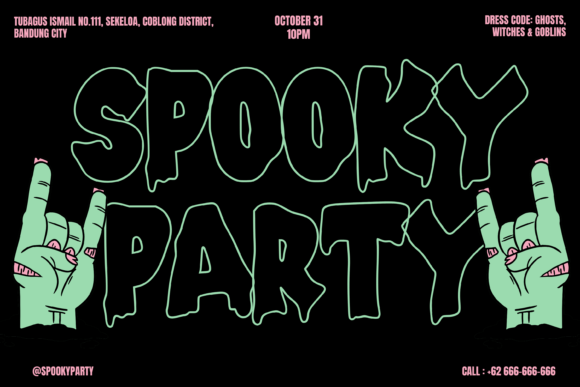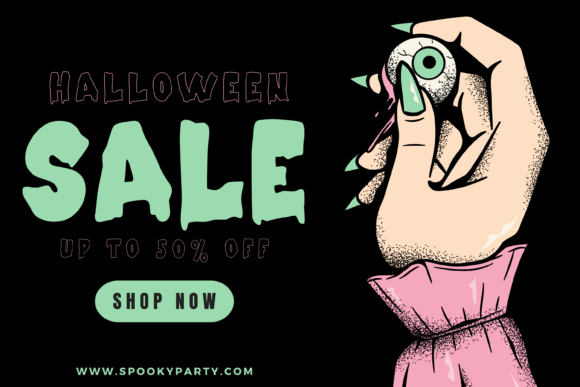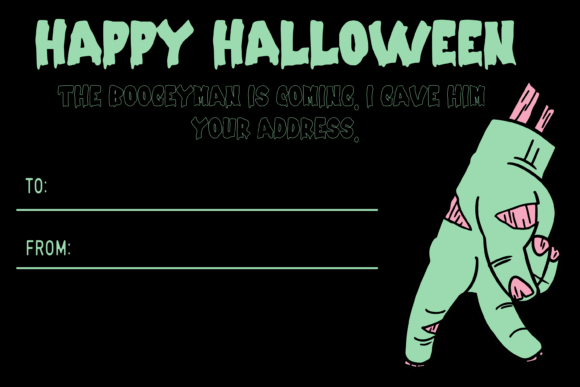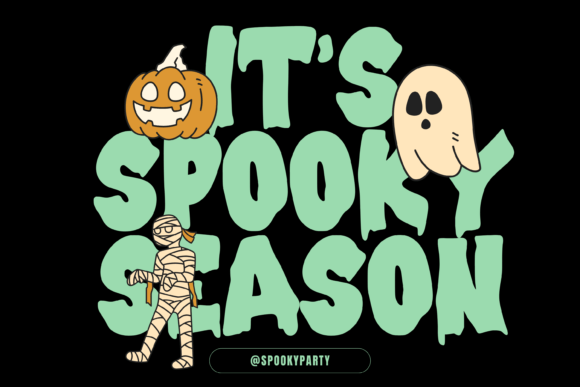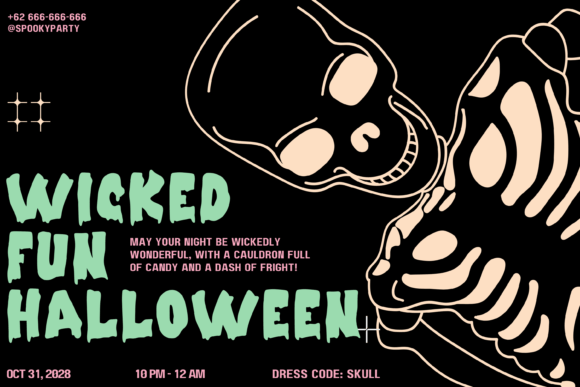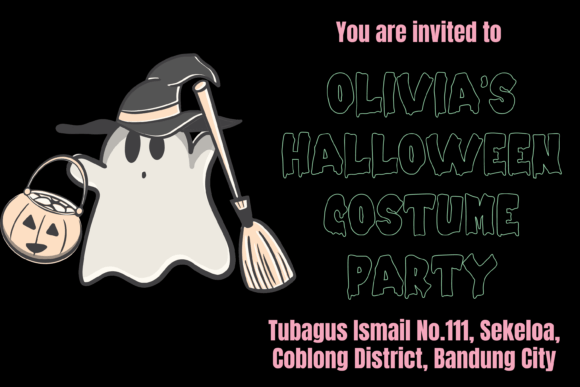
Introduction to Creepy Spooky Font
As you dive into your latest creative project, a spark of inspiration hits you – you want to create something that screams Halloween. The jack-o-lanterns are lit, the cobwebs are hanging, and the spooky atmosphere is in the air. But, what’s missing is that perfect font to elevate your design to the next level. That’s where the Creepy Spooky Font comes in – a free download that’s sure to add an instant air of horror to your text.
Designers know that the right font can make all the difference in a project. With its unique dripping effect and jagged edges, the Creepy Spooky Font is a high-quality design resource that’s perfect for adding a touch of eeriness to your creative project. Whether you’re working on a Halloween-themed design, a spooky movie poster, or a creepy social media graphic, this font is sure to deliver. And, with its transparent background, you can easily place it over any image or background, making it a valuable addition to your design arsenal.
Key Features of Creepy Spooky Font
- Unique, spooky design elements that can add a creepy atmosphere to any creative project
- Transparent background, allowing for easy customization and integration with other design resources
- Includes a range of font styles and sizes, from bold and eerie to subtle and mysterious
- Designed with a high resolution of 300 DPI, ensuring crisp and clear text in any size or format
- Perfect design resource for Halloween-themed projects, horror movies, or any other creative project that needs a spooky touch
Honest Review: Creepy Spooky Font
I recently stumbled upon the Creepy Spooky Font and I’m excited to share my thoughts on this unique design resource. As a designer, I appreciate high-quality fonts that can add a touch of personality to a creative project. This font definitely delivers.
- What works well: ✨ The Creepy Spooky Font is perfect for Halloween-themed projects or anything that requires a spooky vibe. The font’s unique characters and symbols add a level of depth and creativity that’s hard to find in other fonts.
- What works well: ✨ The transparent background option allows for seamless integration with any design element, giving you more flexibility in your creative project.
However, there are a few limitations to consider: ⚠️ The font is not as versatile as some other fonts, and the spooky theme may not be suitable for all projects. Additionally, the font’s unique characters may require some tweaking to get them to display correctly on certain platforms.
Overall, I’m impressed with the Creepy Spooky Font and would recommend it to designers looking for a unique and high-quality design resource for their creative projects.
Designing with the Creepy Spooky Font
To get the most out of the Creepy Spooky Font, use it for titles, headings, and other text elements that require a spooky and mysterious touch. Experiment with different font sizes, colors, and combinations to create a unique design resource.
The Creepy Spooky Font is perfect for Halloween-themed designs, horror movies, and spooky websites. You can also use it for creative projects like posters, flyers, and social media graphics.
For the best results, pair the Creepy Spooky Font with other spooky design elements like cobwebs, bats, and jack-o-lanterns. Use it in conjunction with a high-quality image or background to create a truly immersive experience.